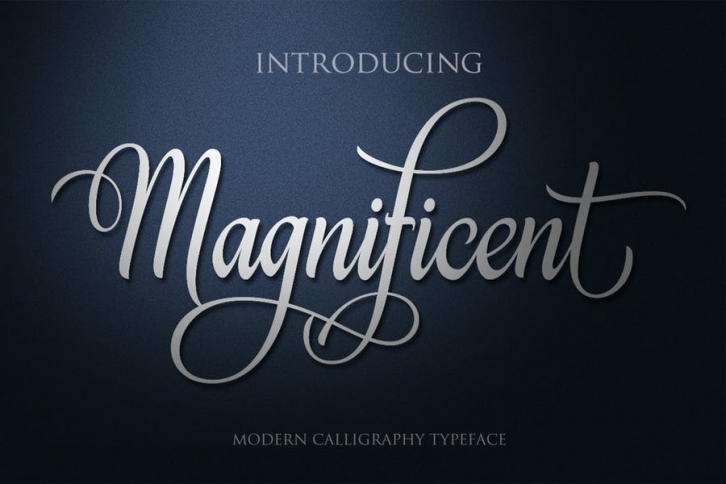
The Magnificent font is Elegant & Confidence
This font was created to help you designing brand of yours own or your client, and you also can use it for designing all of the graphic stuff such as badge, sign, packaging, headline, T-shirt/apparel, Poster, etc.
The Magnificent font was designed for personal characters such as strong, confidence, dynamic, readable, etc. This font is suitable to use as a logotype, apparel, wedding invitation, signboard, sport club, motor / car, etc.